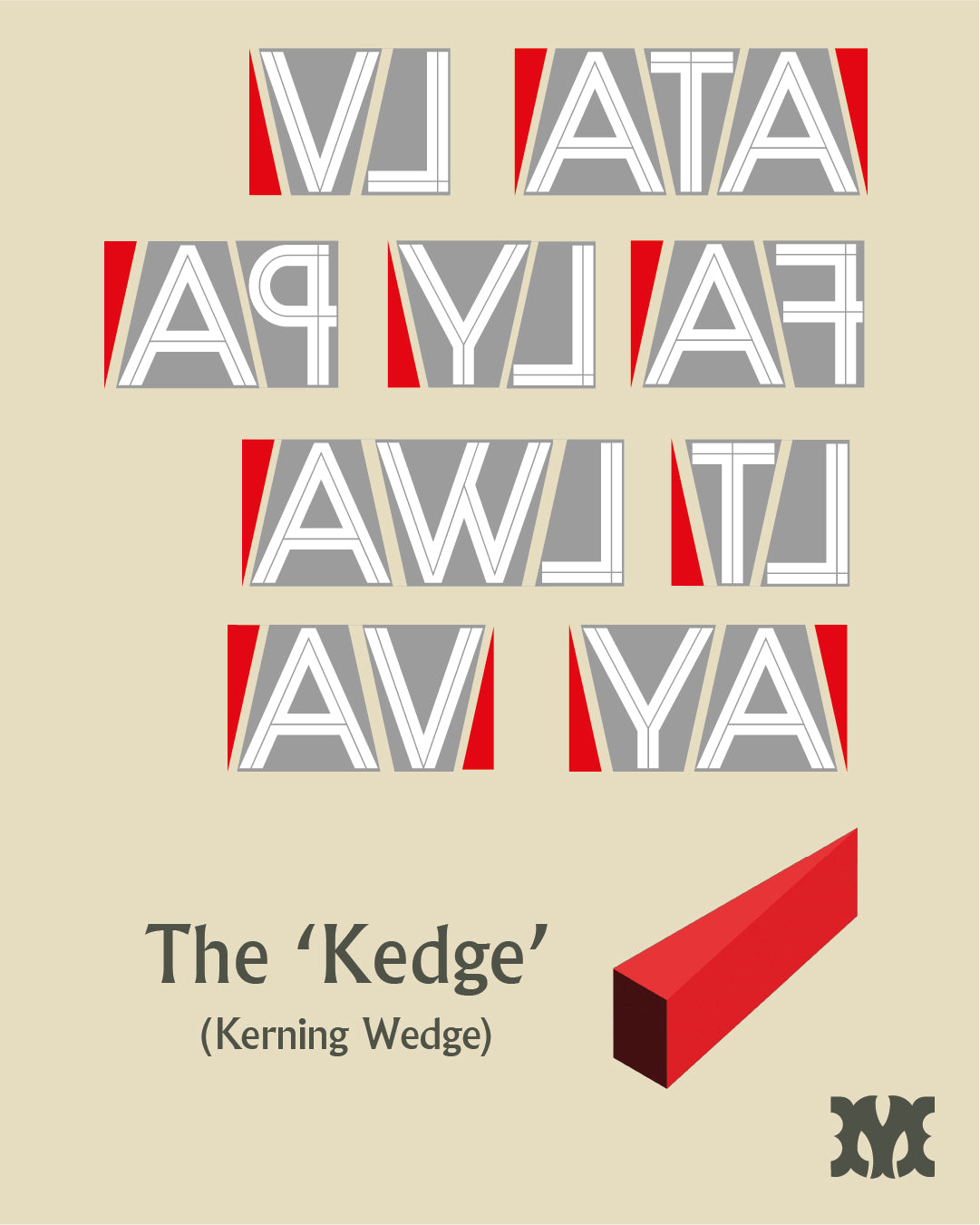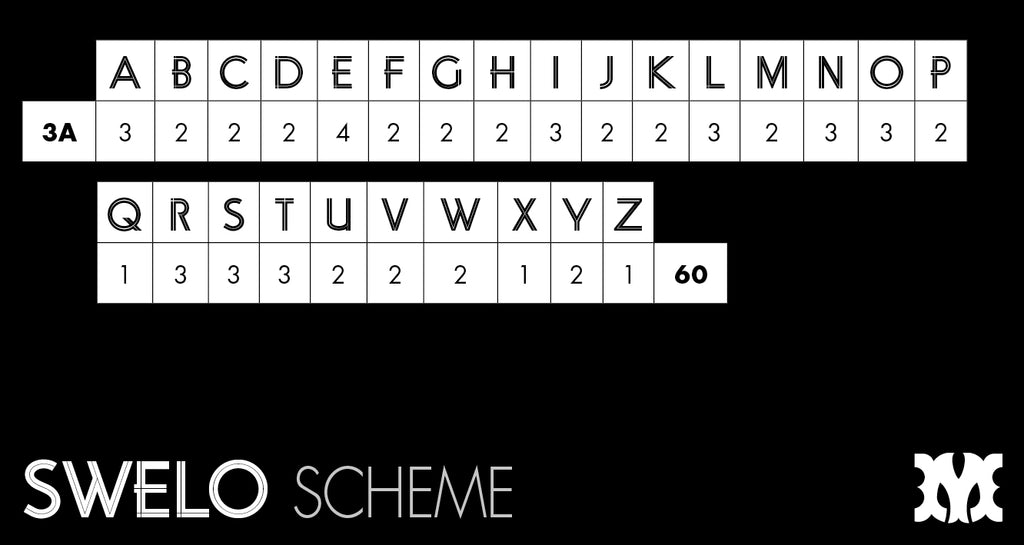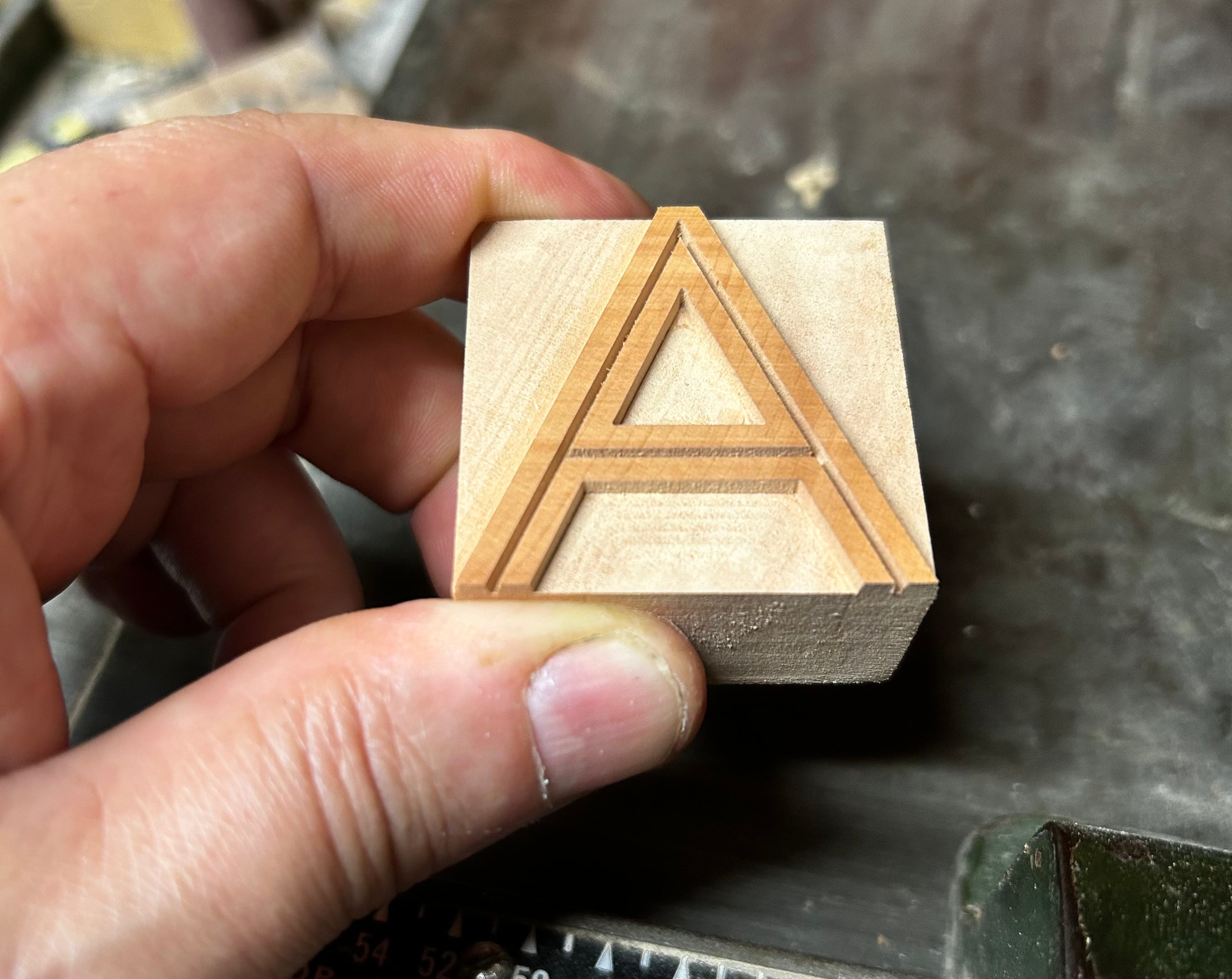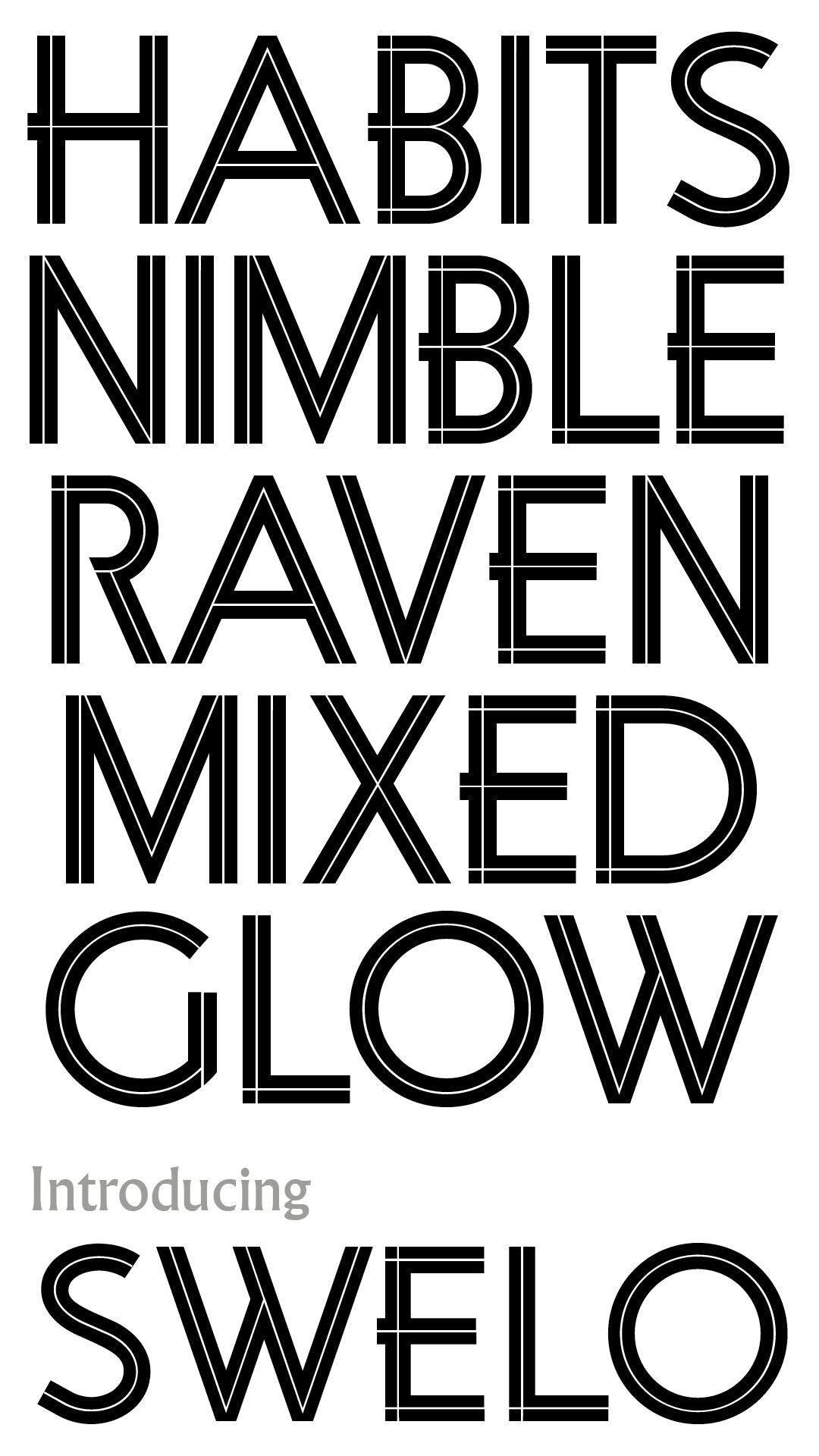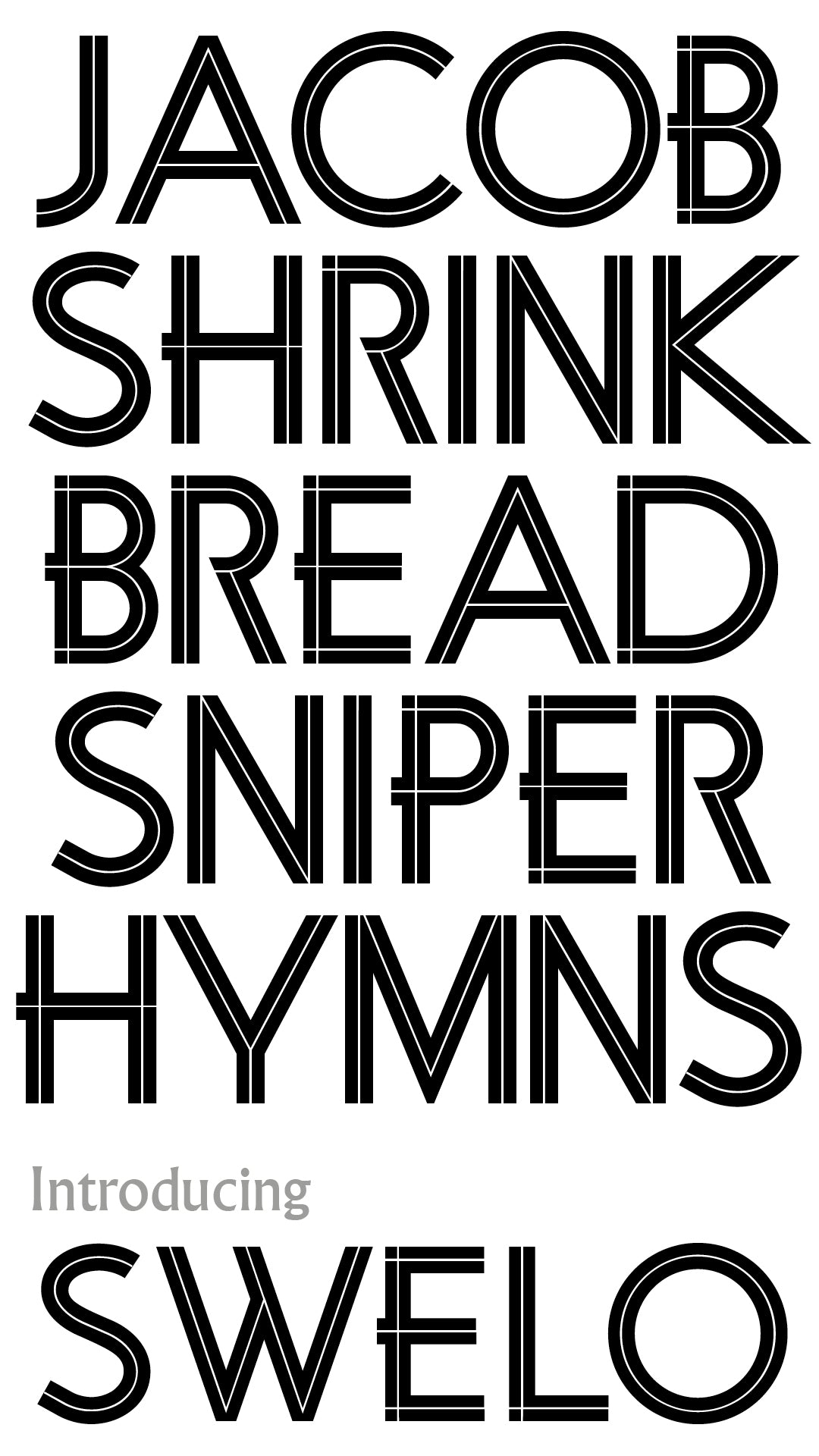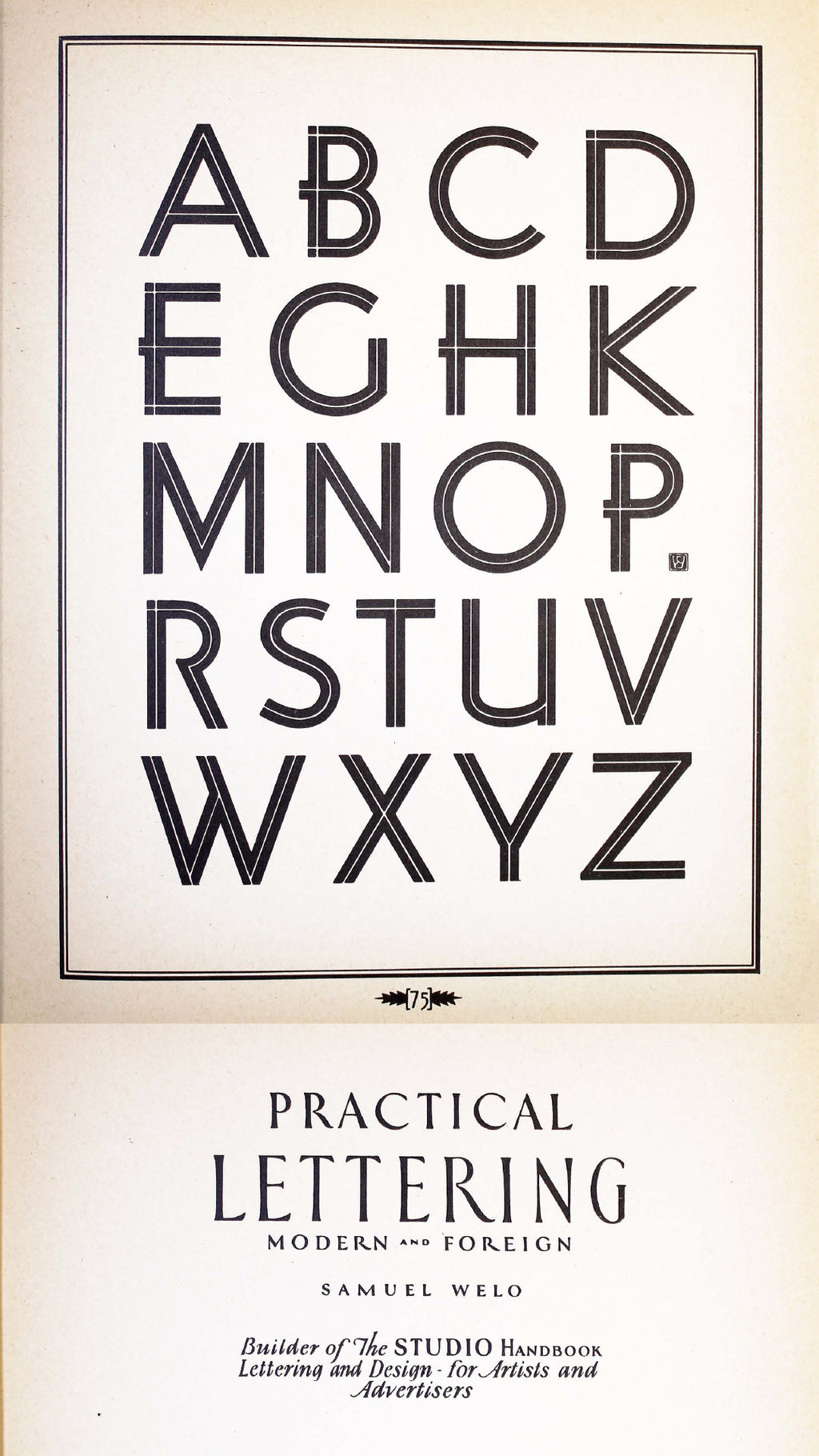
'Swelo' letterpress woodtype typeface
Introducing 'Swelo' - a typeface based on 1930s design by Samuel Welo for the book 'Practical Lettering - Modern and Foreign'.
10 line (42.3mm) size cut from end grain English hardwood using a combination of modern CNC technology and traditional hand woodworking tools (including an original printers saw), made to English type-high (0.918in or 23.3mm) within plus or minus 0.1mm tolerance, sealed with shellac and hand finished with a traditional polished printing surface.
Introducing the ‘Kedge’ - a wedge designed for kerning with specially made ‘Swelo’ kerning blocks.
Endgrain English hardwood, clear shellac
Each block varies in width however average size is 38mm x 23.3mm x 42.3 mm.